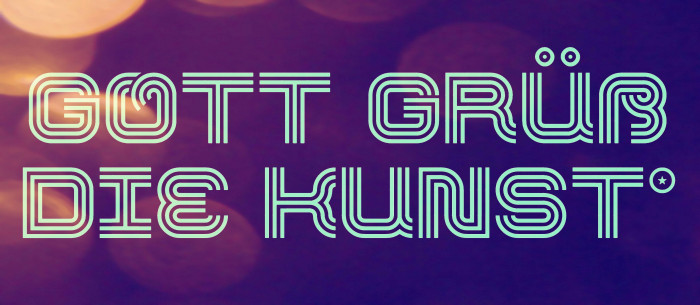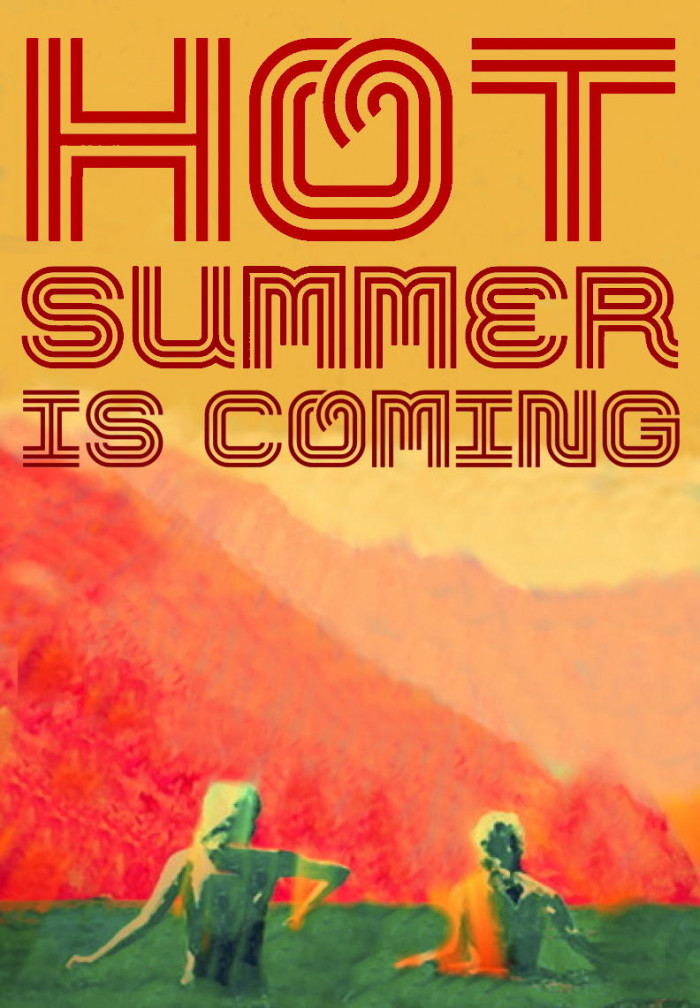
I can't superate chocomotion by four (❤️!), but I'm trying my own soft approach to the 3lines font design world. Hope you like this attempt to clarify from my to-do list. Btw: feedback about the design or aesthetics of some Cyrillic characters would be appreciated. Thanks in advance, people.
* "God save Art". Praise referred to the printing press that was also used as a greeting among printers, typesetters, typographers, engravers, lithographers and other disciples of the so-called "black arts".
A lovely addition to the triline library!
I really like the softness of the whole font, 10/10!
I love your font. Very nice Cyrillic.